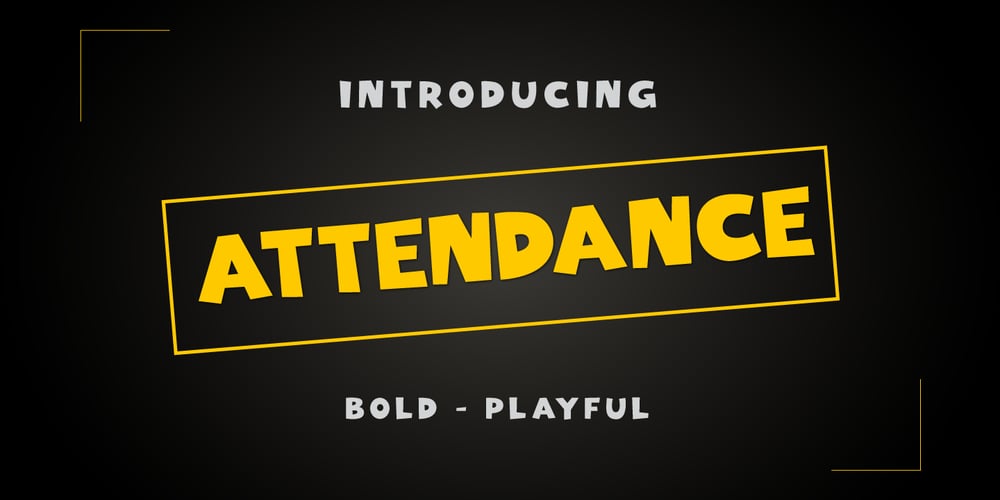
Attendance Font Family was designed by Tanveer Qureshi and published by TanveerType. Attendance contains 1 styles and family package options. Attendance is a bold and playful font that can be used for logos, t-shirts, branding and many other projects.